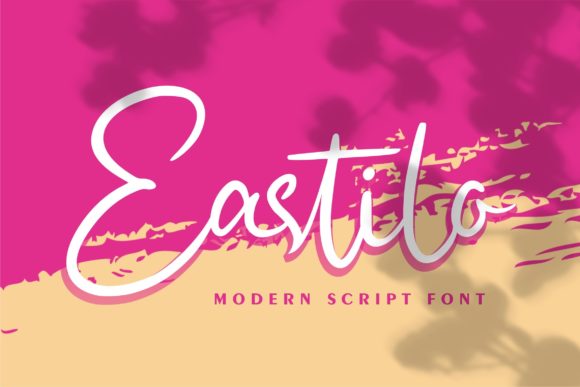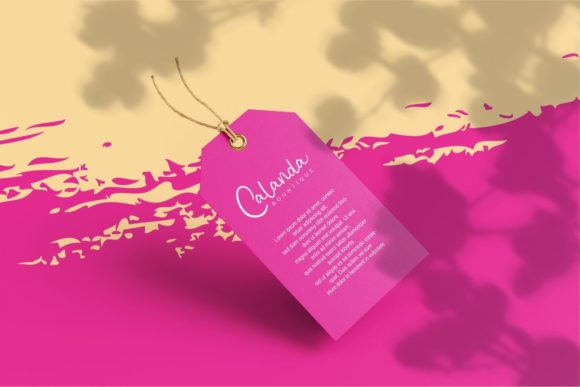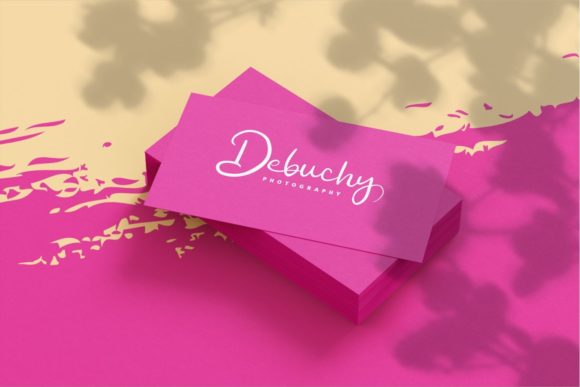
About Eastilo Font
Eastilo is an exquisite handwritten font, masterfully designed to become a true favorite. It maintains its classy calligraphic influences while feeling contemporary and fresh. Fall in love with it and bring your projects to the highest levels!